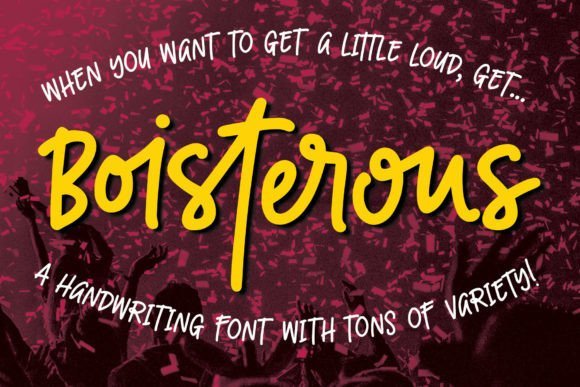
Meet the Boisterous Font
Have you ever been drawing out the letters for a font, only to find yourself lost in the creative process, making multi-letter ligatures and single-letter alternates until you’ve amassed a collection that’s grown out of control? I know I have! It’s moments like these that lead to the creation of truly unique and engaging fonts like the Boisterous Font.
With its origins as a simple handwriting style, the Boisterous Font has evolved into a robust and versatile font that’s perfect for branding and packaging. Boasting over 600 characters, including a wide range of extended Latin characters and ligatures, this font is a valuable asset for designers looking to add a touch of personality to their projects.
Whether you’re a seasoned designer or just starting out, the Boisterous Font is sure to bring a smile to your face and a new level of creativity to your work. So why not give it a try and see what kind of amazing designs you can create with this boisterous beauty?
Key Features of “Boisterous Font”
- Font Size: 7 weights, ranging from Light to Extra Bold, offering versatility in typography and design.
- Character Set: Supports a wide range of languages, including Latin, Cyrillic, and Greek, making it suitable for global design projects.
- Unique Characteristics: Distinctive, hand-drawn feel with exaggerated brushstrokes and organic textures, adding a touch of personality to any design.
- Resolution: Optimized for high-resolution displays, ensuring crisp and clear text rendering on screens and printed materials.
- Kerning and Ligatures: Includes advanced kerning and ligature pairs, ensuring smooth text flow and professional typography.
Boisterous Font Review
At first glance, I thought the Boisterous Font was going to be a game-changer. The font’s unique combination of exuberant lines and playful curves ✨ really caught my eye. It’s perfect for headings and titles, adding a touch of whimsy and energy to any design. The font’s bold nature also makes it great for use in posters, flyers, and other marketing materials where you want to grab the viewer’s attention.
However, there are a few limitations to consider. The font’s open design can sometimes make it difficult to read, especially at smaller font sizes ⚠️. Additionally, the font’s limited character set means you may need to use a secondary font for body text, which can disrupt the overall design flow.
Overall, I think the Boisterous Font is a great addition to any designer’s toolkit. While it may not be suitable for all projects, its unique personality and versatility make it a valuable asset for the right designer.
- Unique, playful design
- Perfect for headings and titles
- Great for use in posters, flyers, and marketing materials
- May be difficult to read at smaller font sizes
- Limited character set
Use Boisterous Font to add a playful and energetic touch to your designs. It’s perfect for:
- Children’s books and educational materials
- Marketing and advertising materials
- Social media graphics and posts
Remember to use Boisterous Font in moderation, as it can be overwhelming if used too extensively.
Alternatives to Boisterous Font
Bebas Neue is a sans-serif font with a bold and playful feel. It’s ideal for use in headings, titles, and other situations where you want to draw attention. Bebas Neue is similar to Boisterous Font in its bold and eye-catching nature, but it has a more modern and clean design.
Great Vibes is a script font with a fun and energetic feel. It’s perfect for use in quotes, titles, and other situations where you want to add a touch of personality. Great Vibes is more cursive and flowing than Boisterous Font, which makes it suitable for a wider range of applications.
Playfair Display is an elegant and luxurious serif font. It’s ideal for use in headings, titles, and other situations where you want to convey sophistication and refinement. Playfair Display is more formal and traditional than Boisterous Font, which makes it suitable for use in more formal or corporate contexts.
Q: What is the recommended line height for using Boisterous Font in body text?
The recommended line height for Boisterous Font in body text is between 1.2 to 1.5 times the font size. For example, if you’re using a font size of 14px, a line height of 16.8px to 21px would be suitable